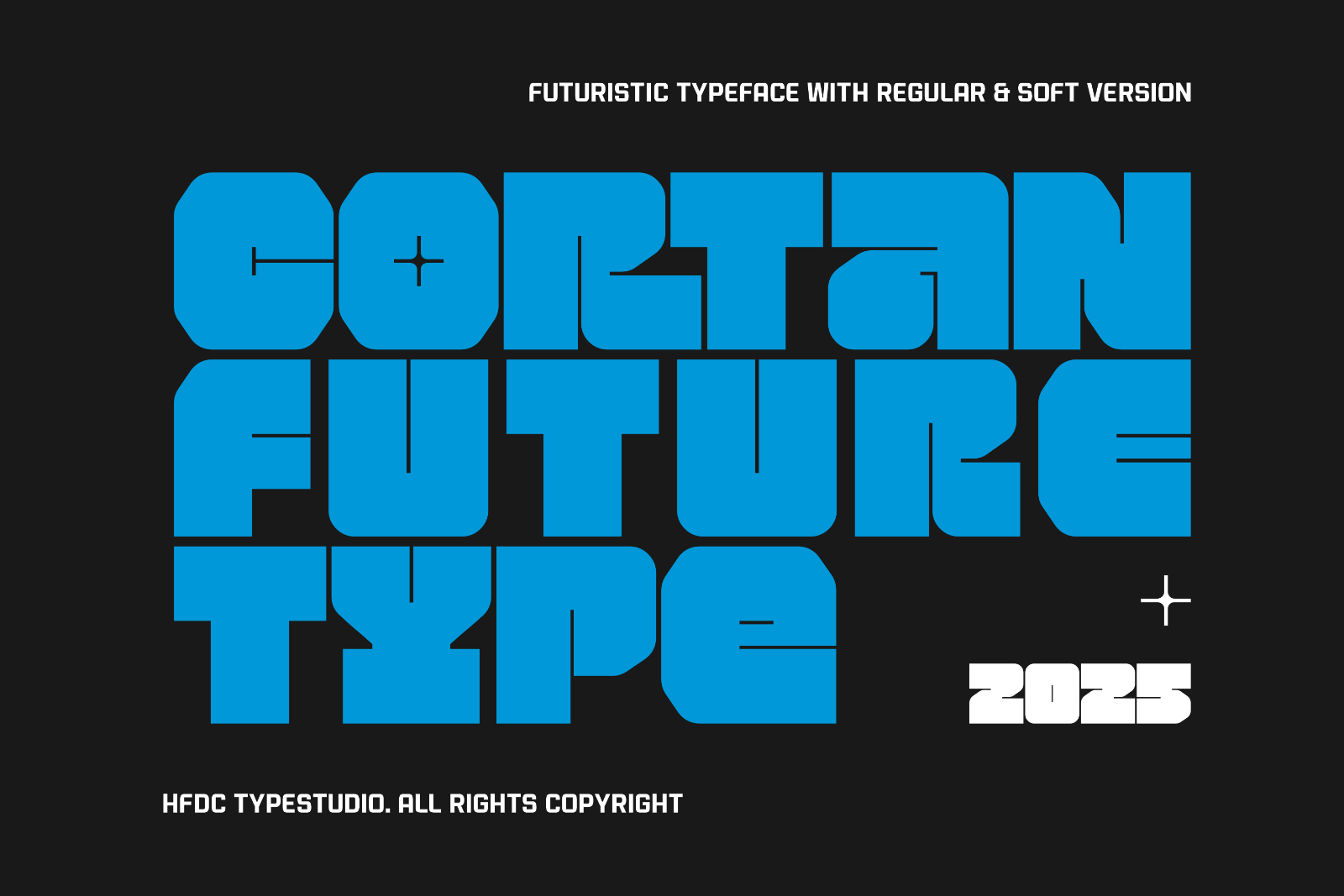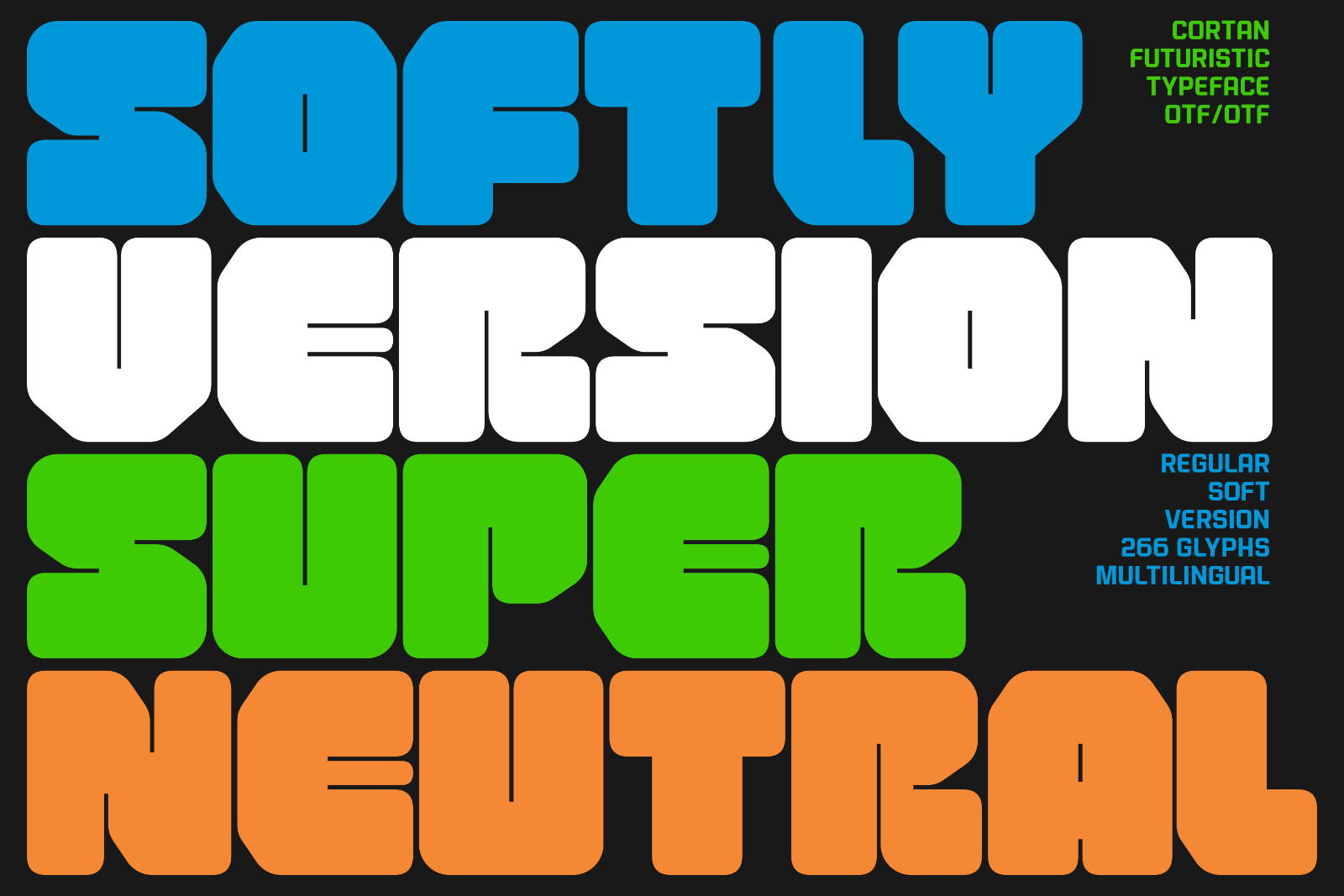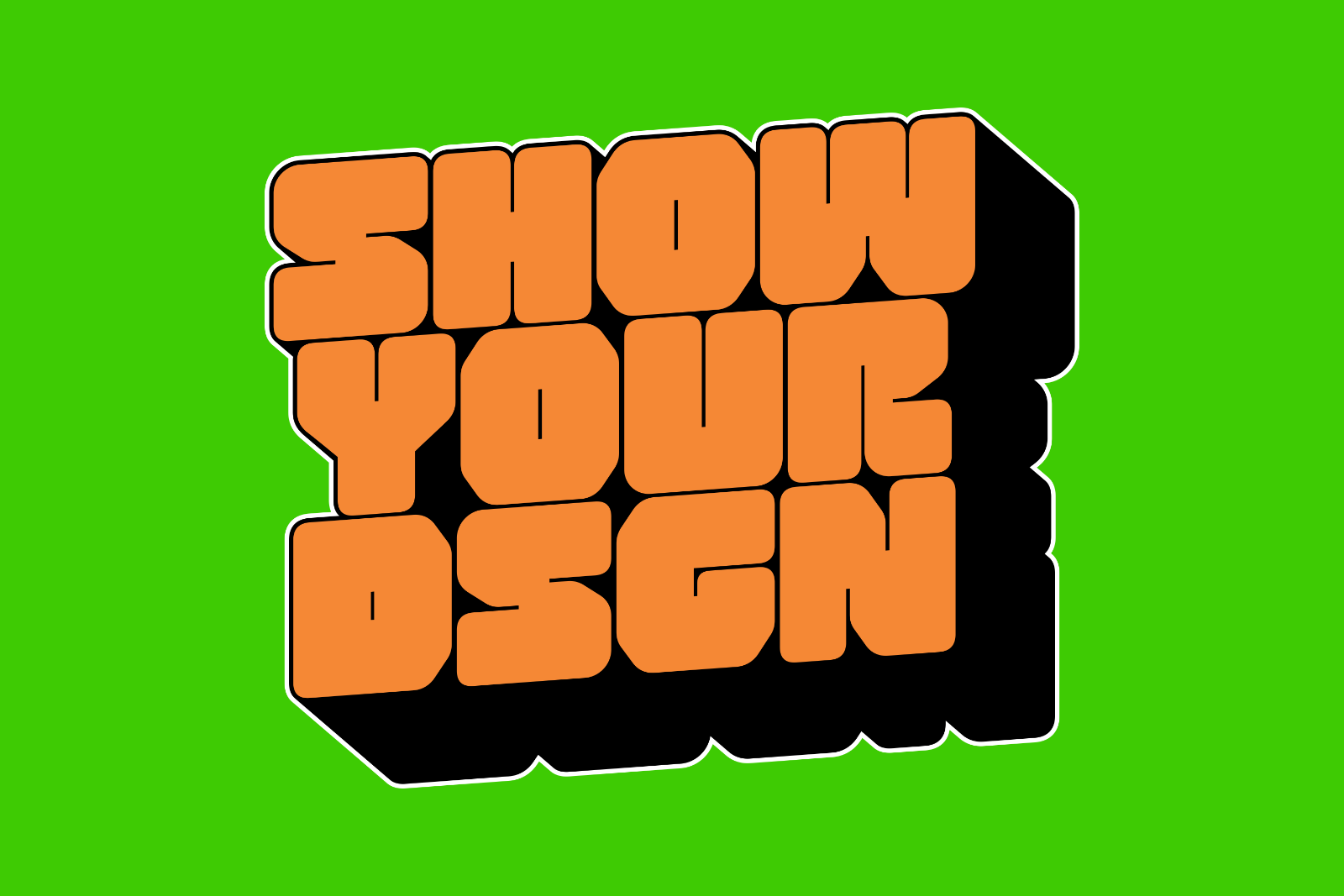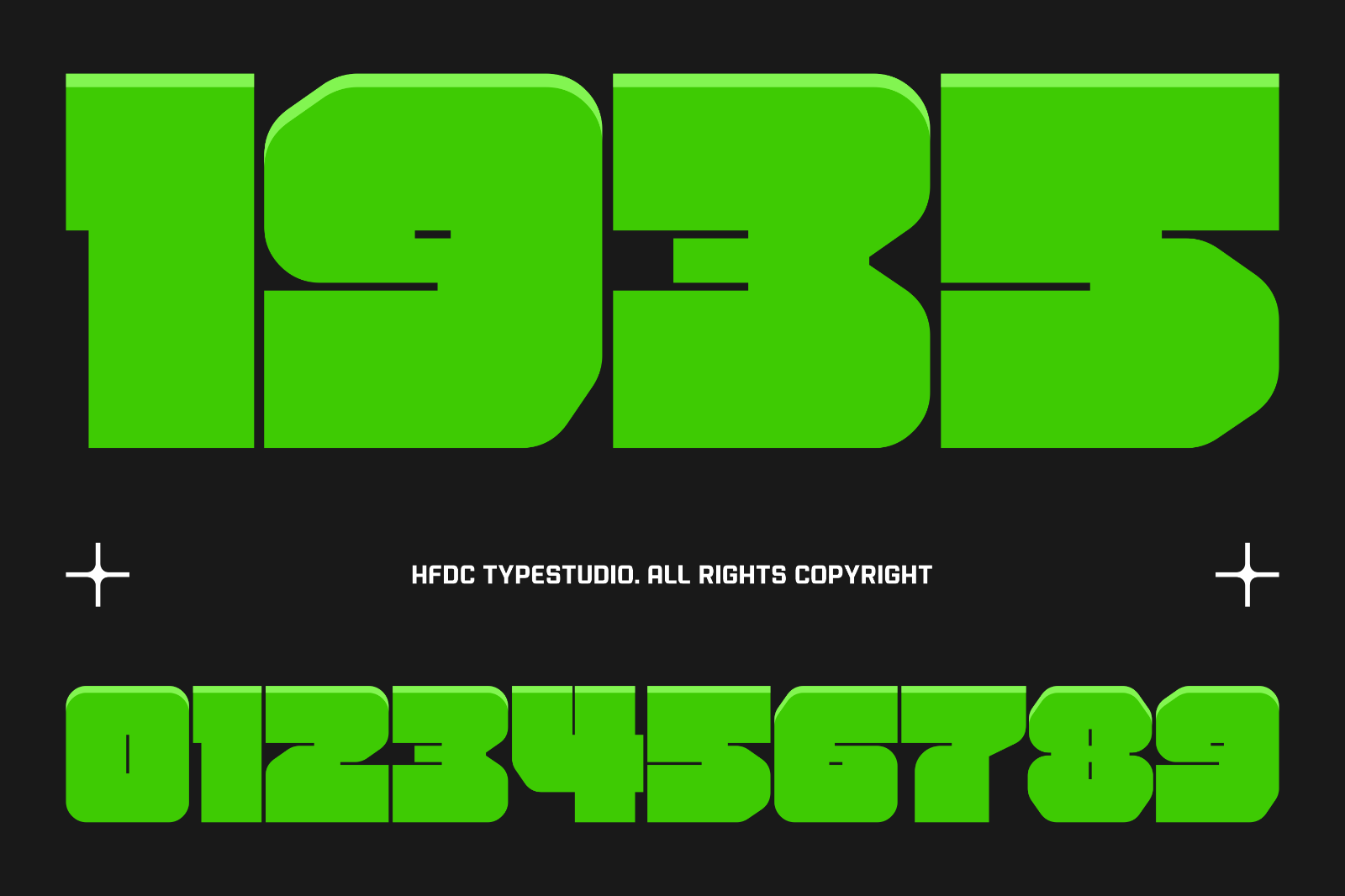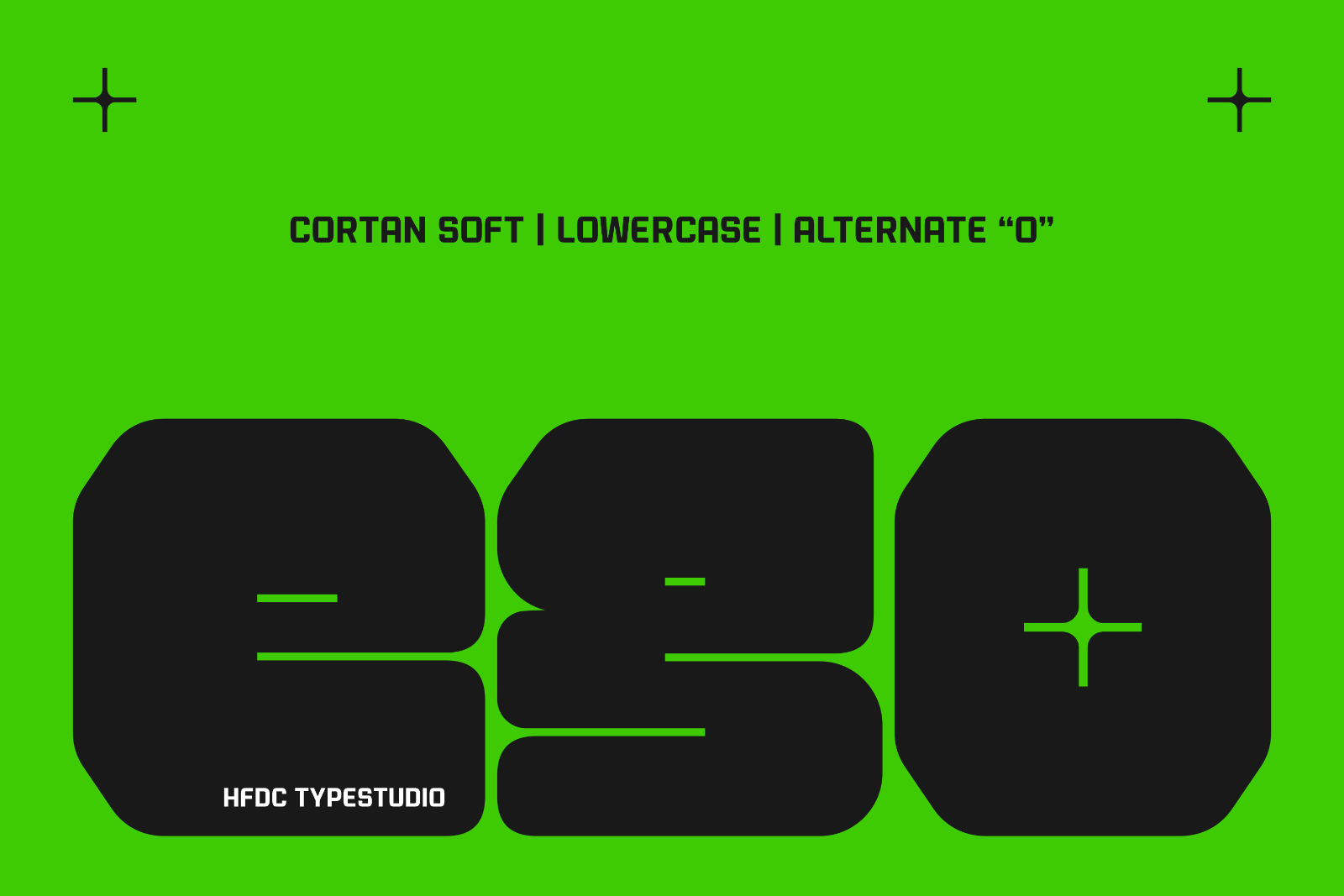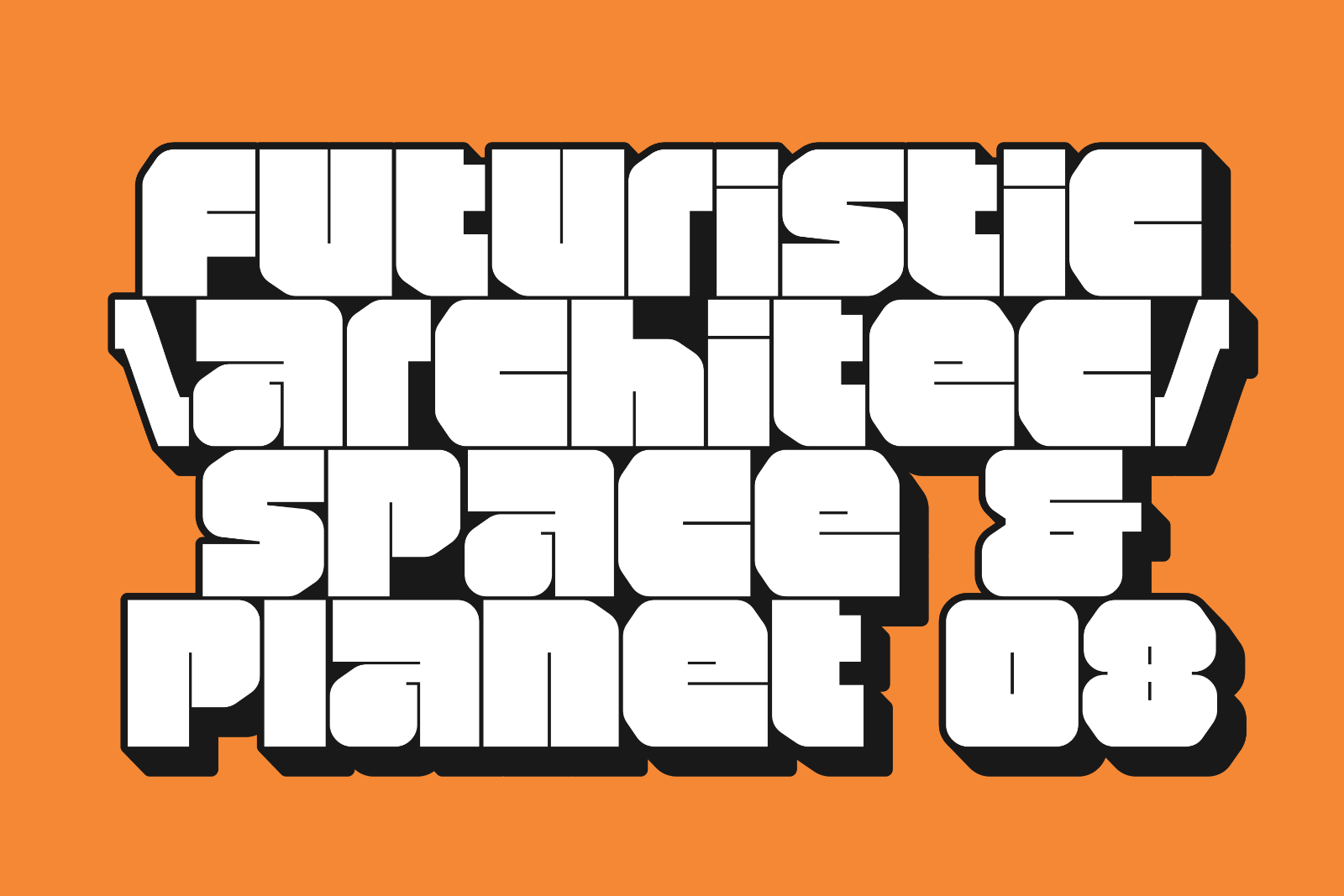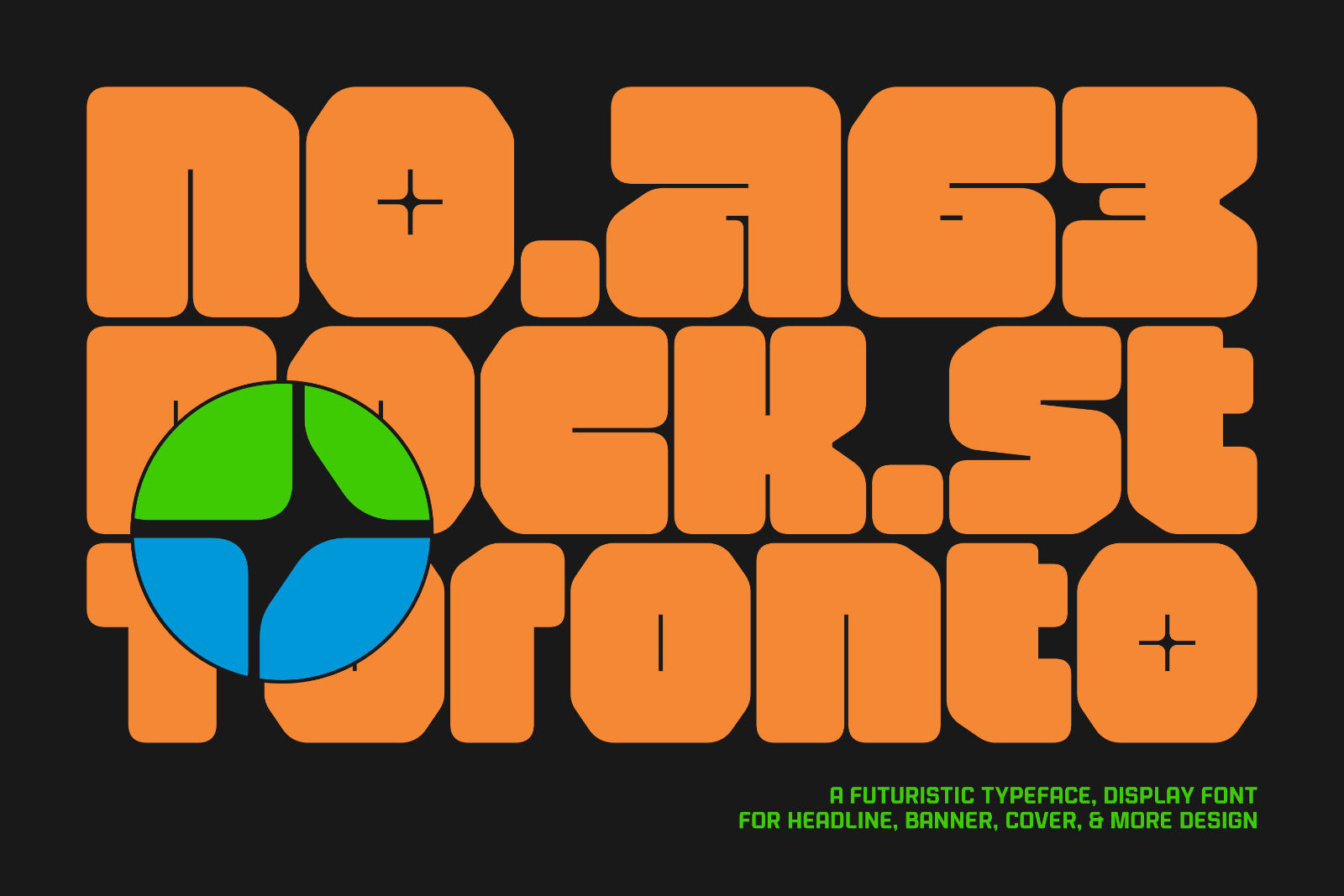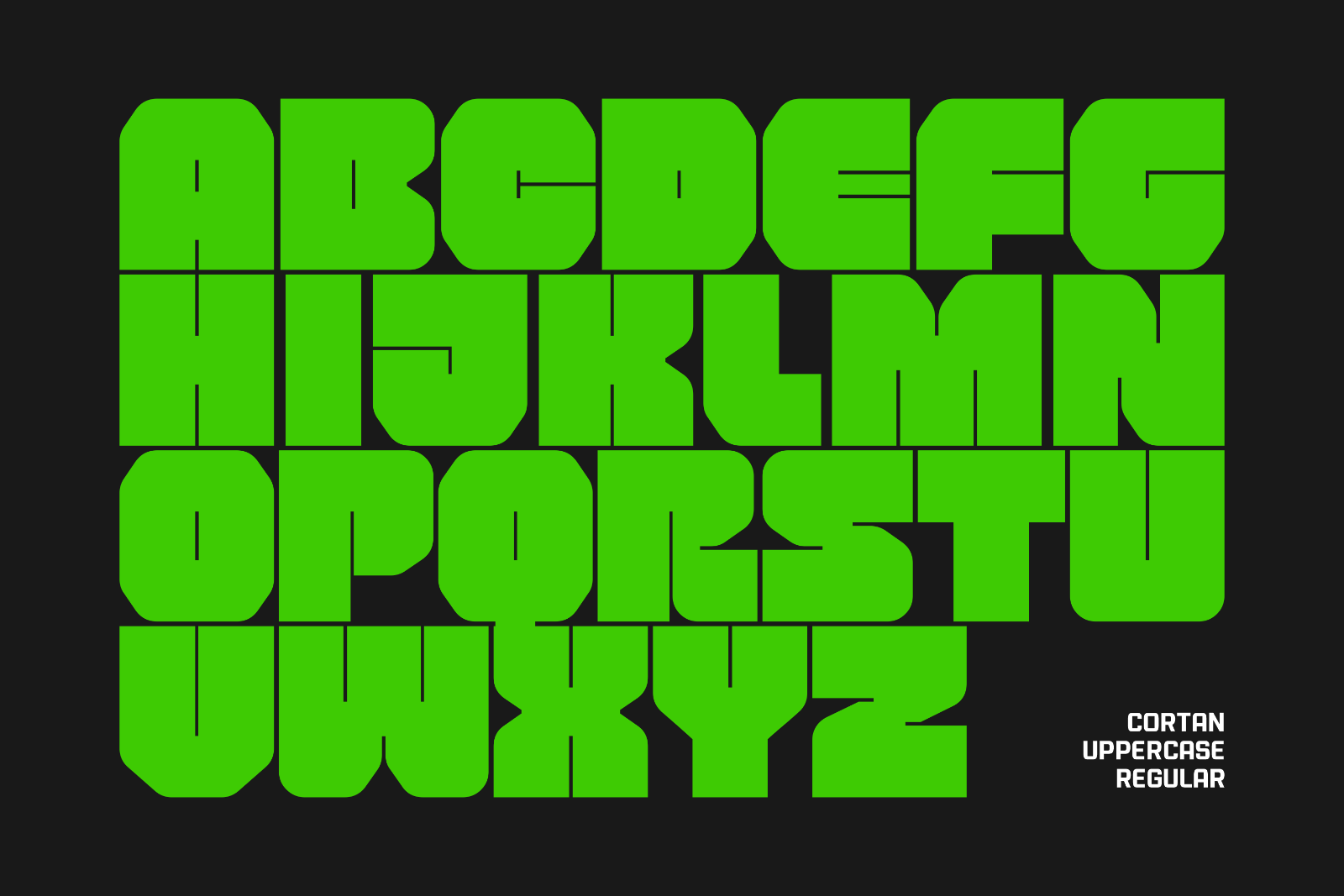
Cortan is a bold and futuristic display typeface with strong, geometric letterforms. Designed to command attention, Cortan is perfect for projects that need a powerful and modern visual impact—such as posters, album covers, creative branding, video titles, and various digital or print materials.
Cortan stands out with its blocky, experimental, and compact shapes—evoking a sense of technology and a bold futuristic vibe. Despite its eccentric look, each character maintains good legibility and consistent structure.
• Two styles available: Regular & Soft
• Uppercase
• Lowercase
• Number
• Punctuation